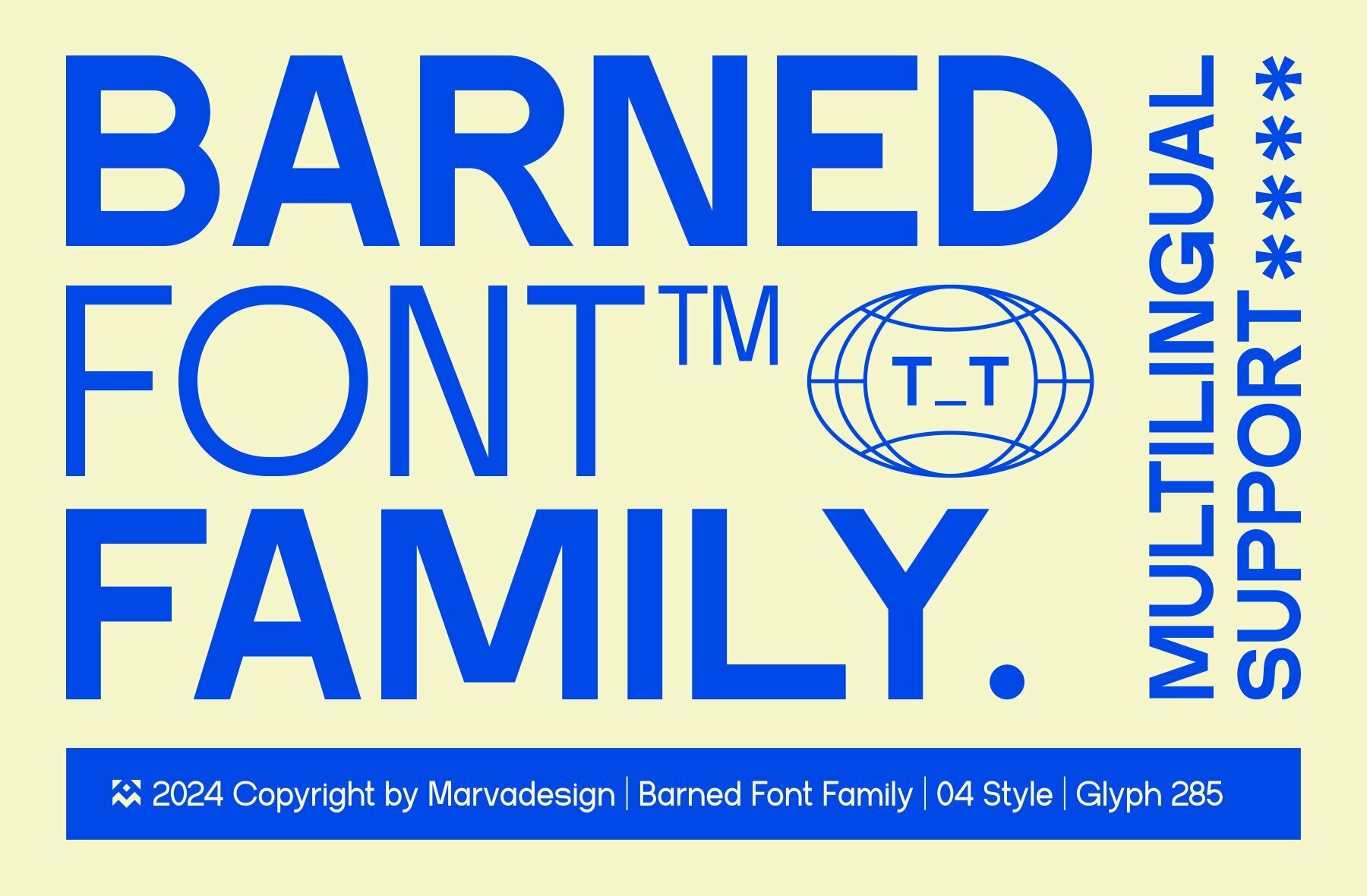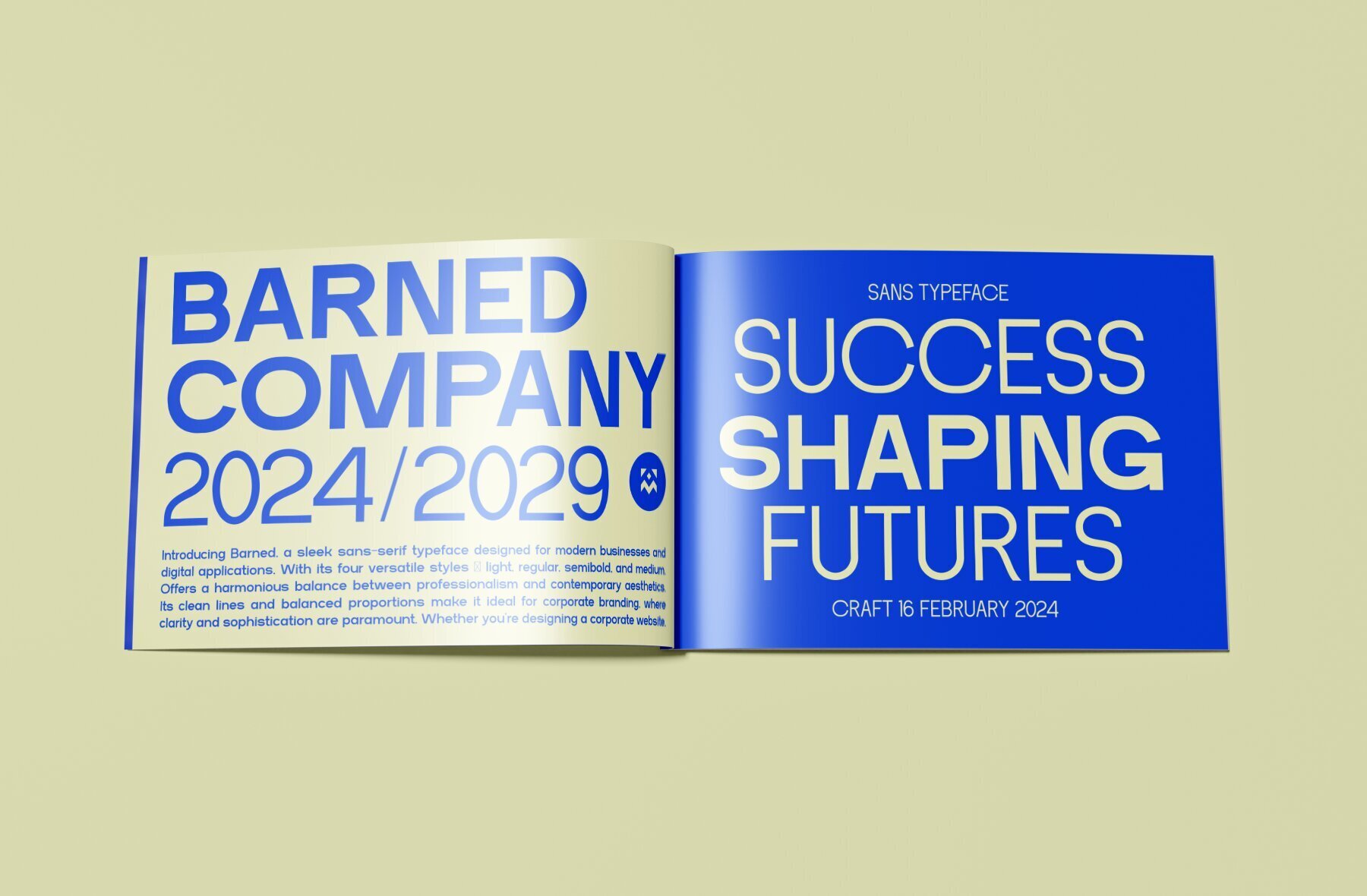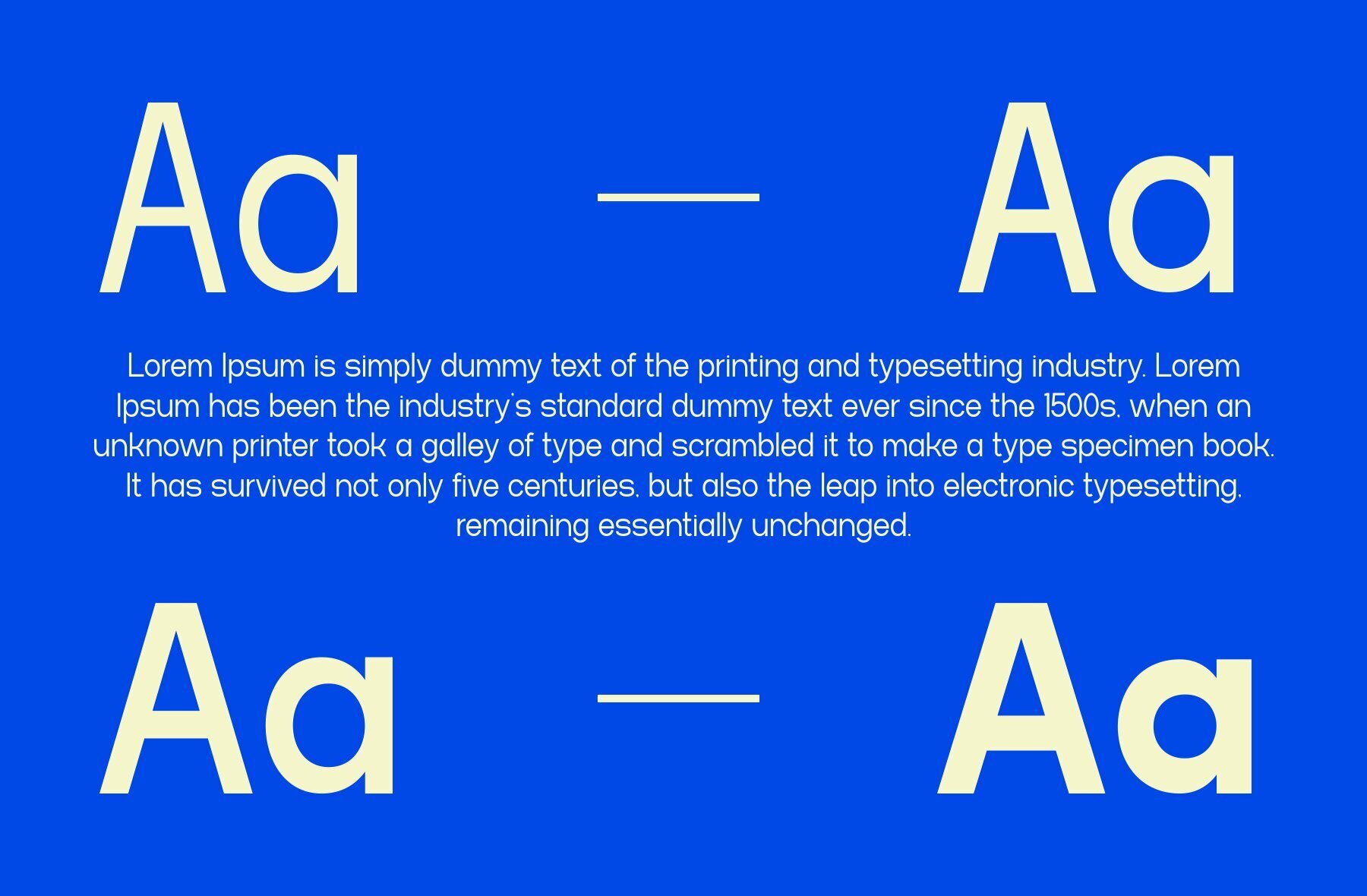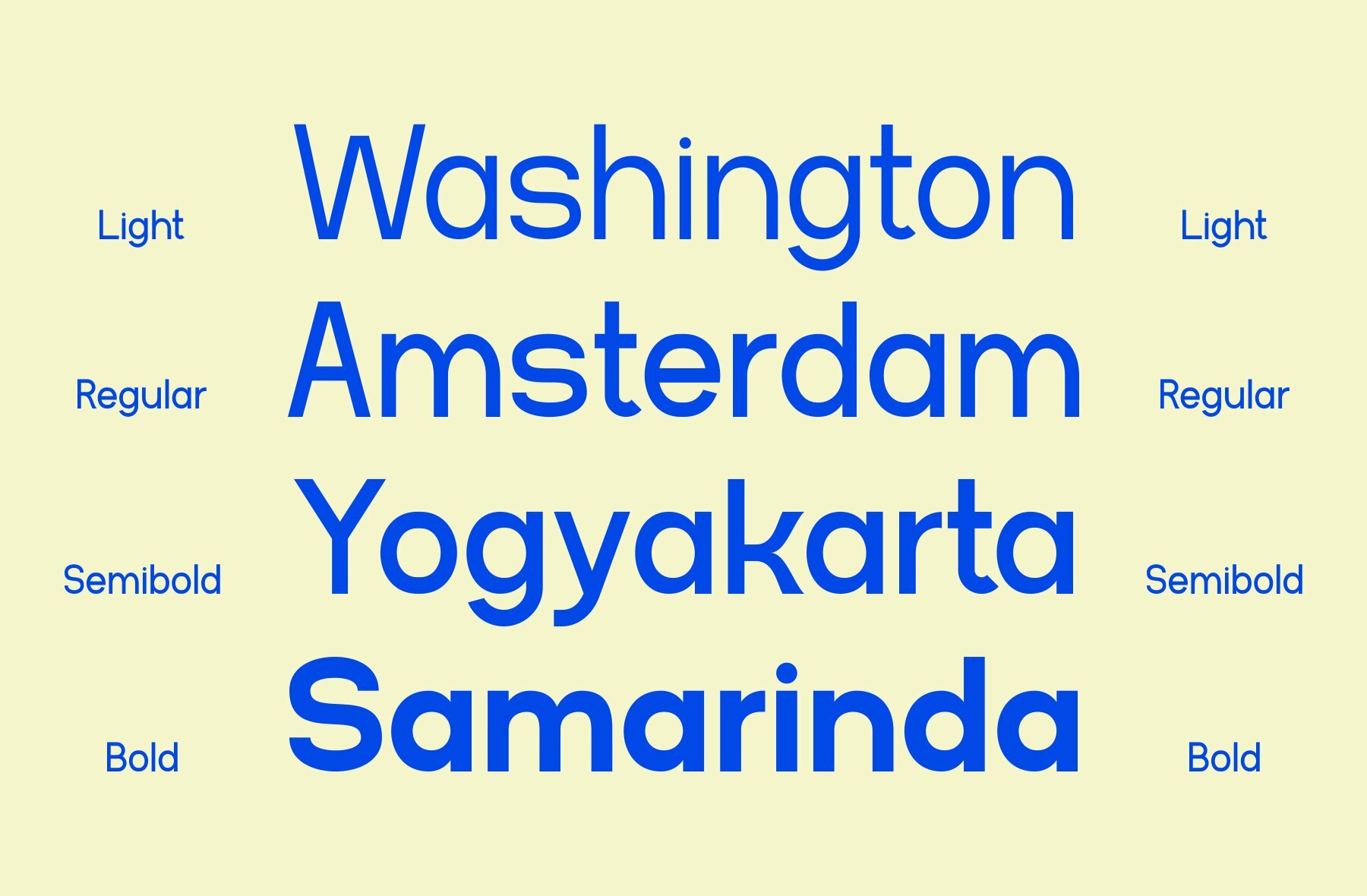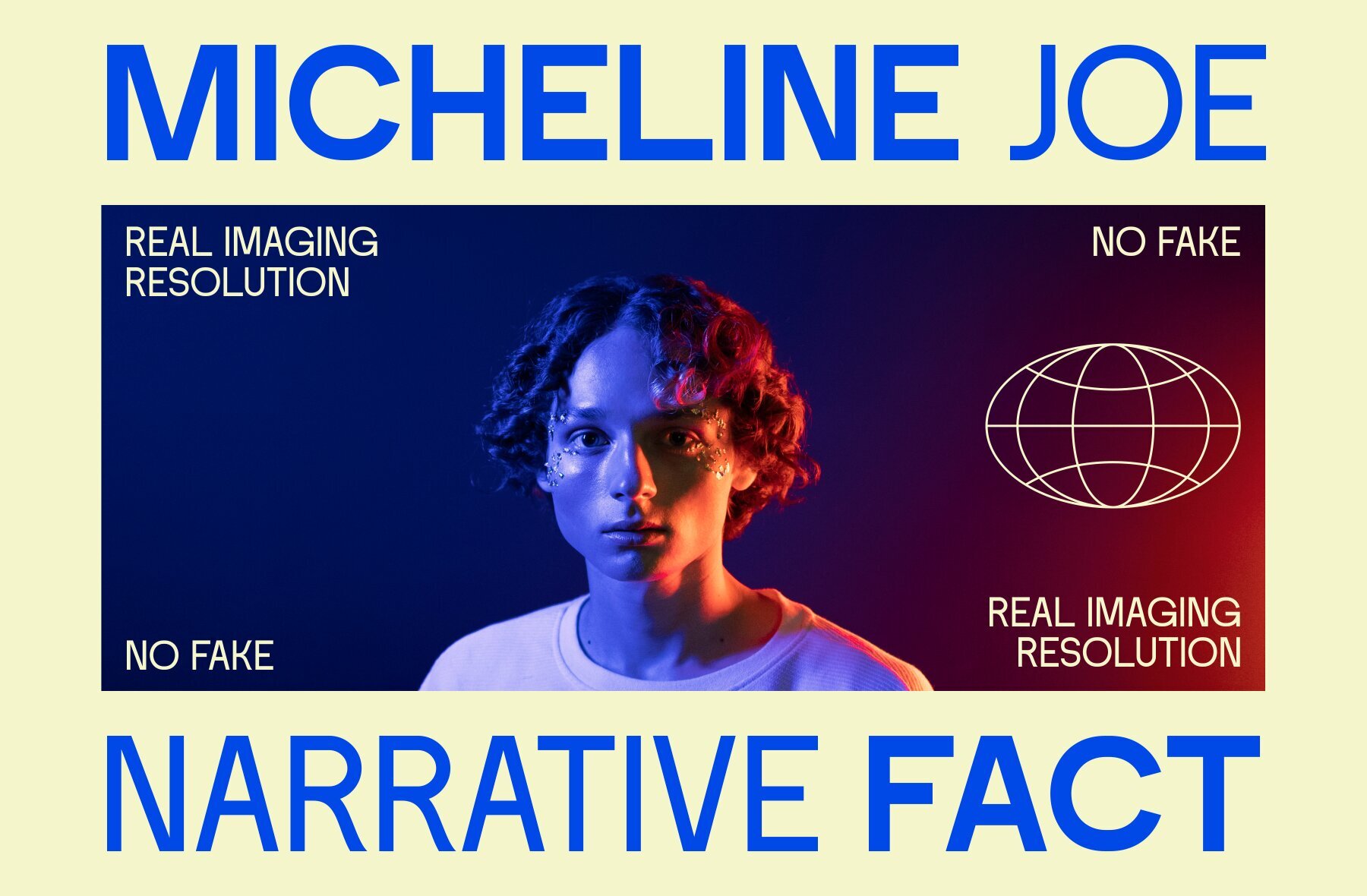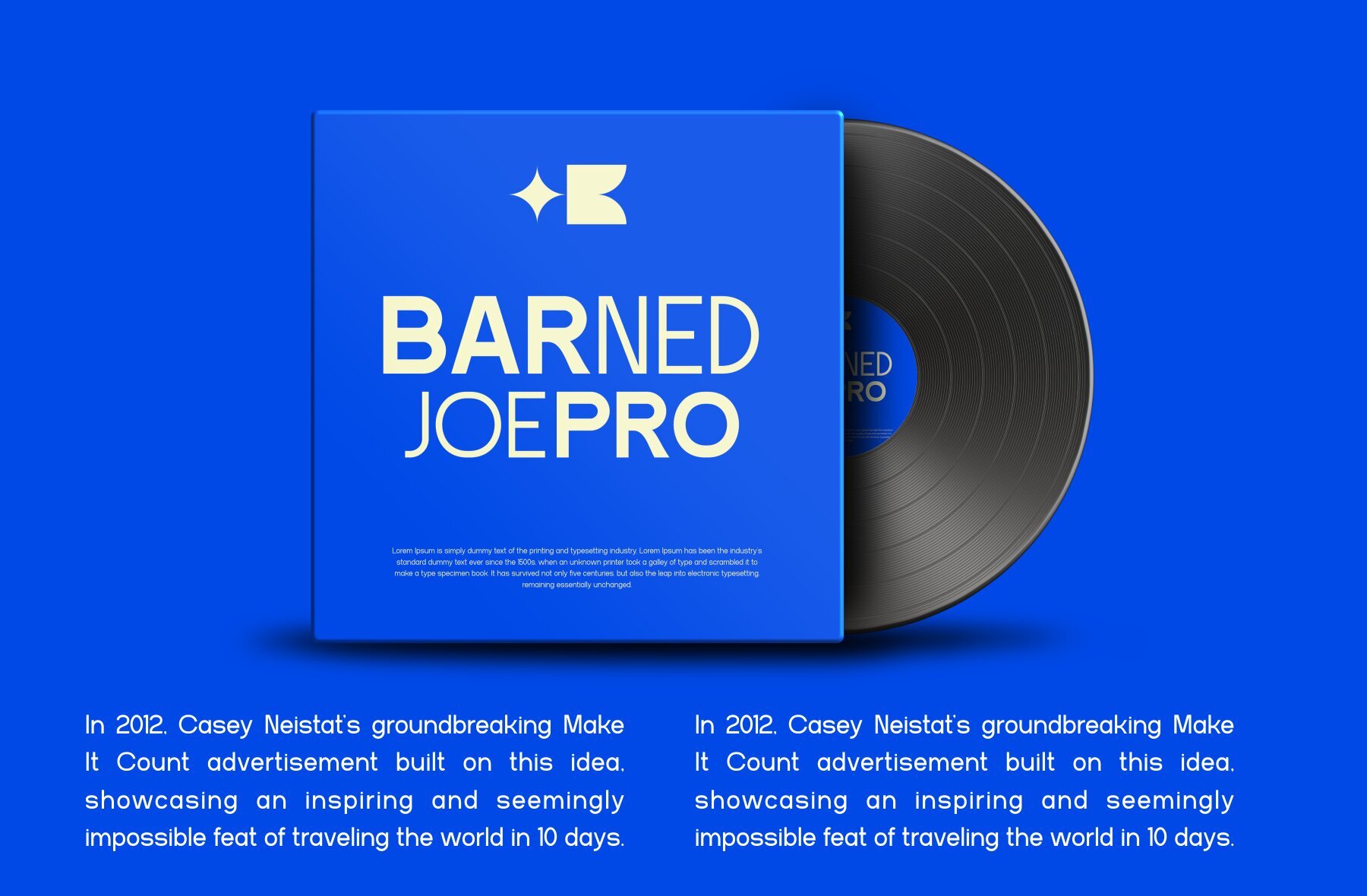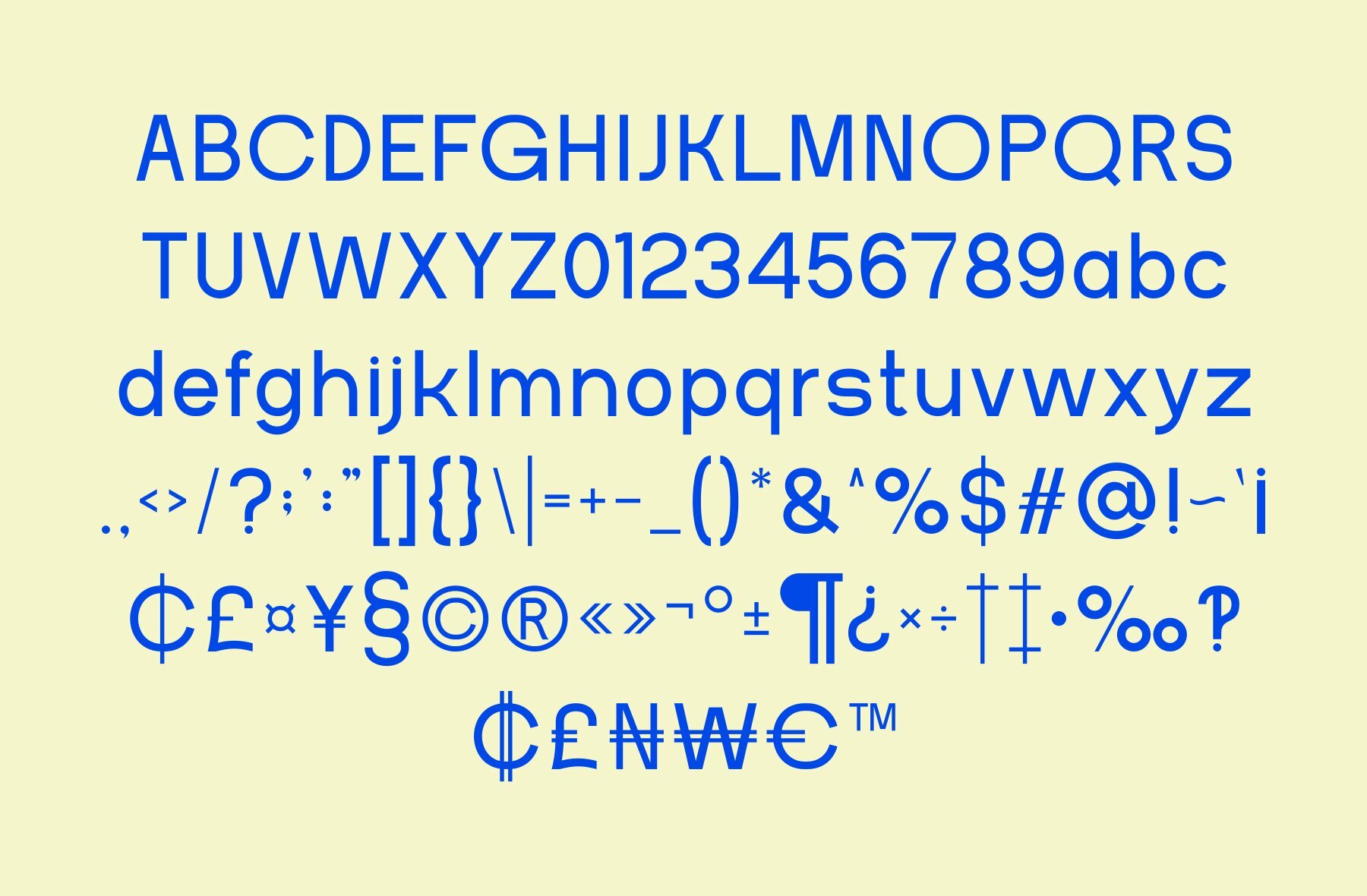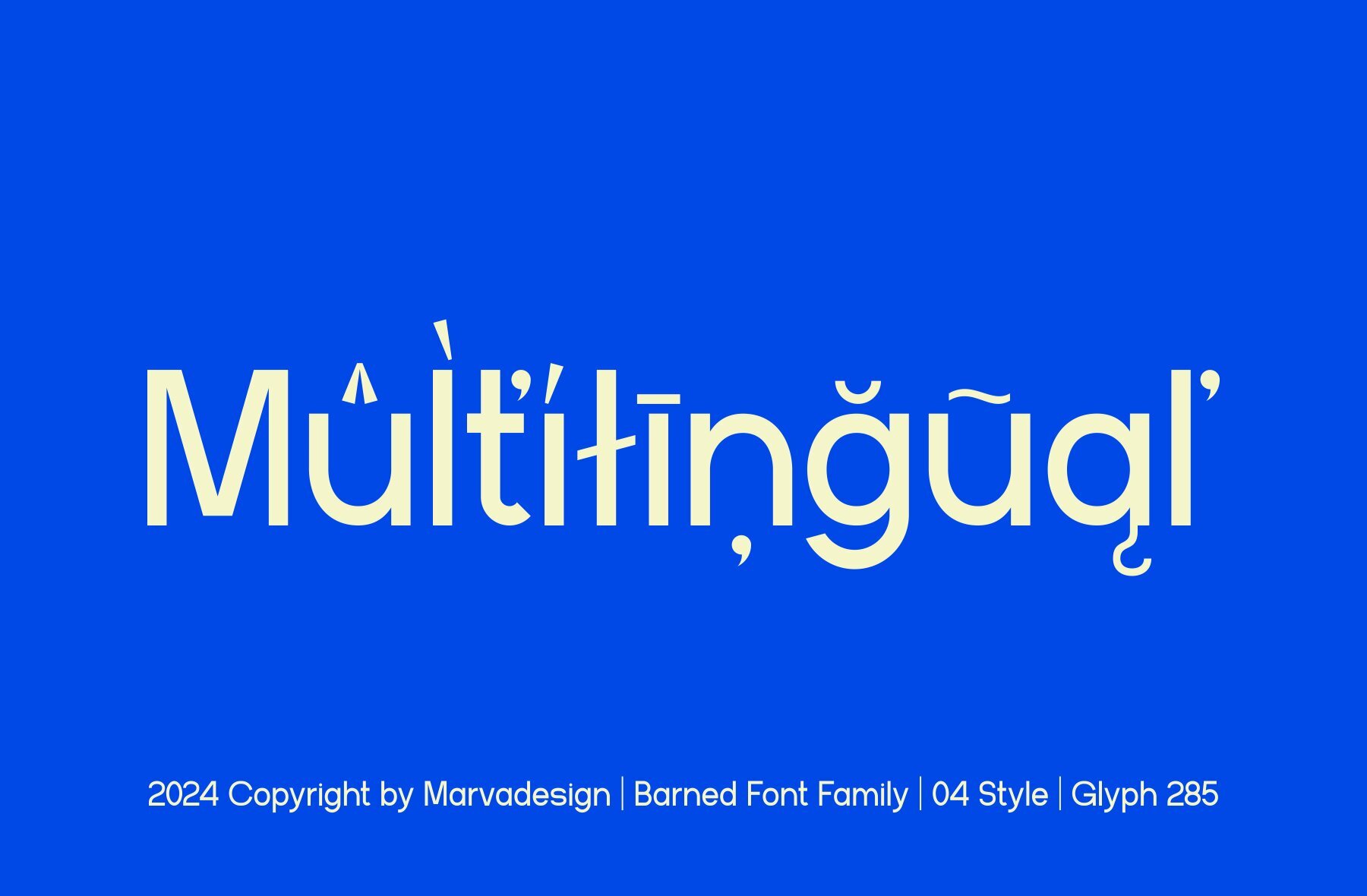
Barned Font
Barned is a sleek sans-serif typeface created for contemporary business and digital applications. Featuring four versatile styles—light, regular, semibold, and bold—this font offers a harmonious blend of professionalism and modern aesthetics. Its clean lines and balanced proportions make it ideal for corporate branding.Barned: A Sleek Sans-Serif Font for Modern Businesses